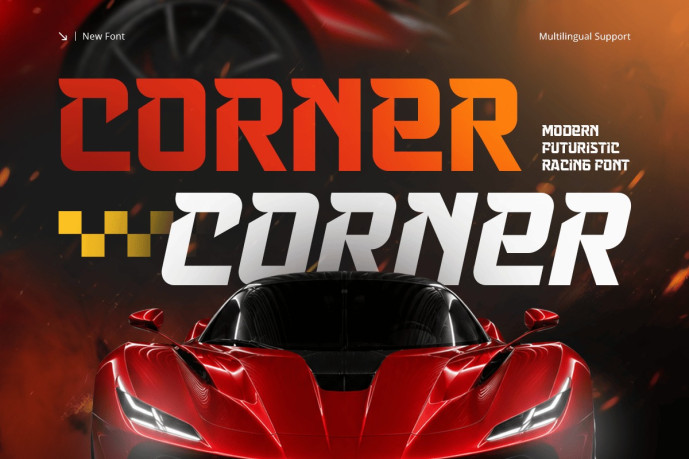
Corner – Modern Futuristic Racing Font
Corner – Modern Futuristic Racing Font is a futuristic racing font designed for motorsport branding, automotive graphics, gaming visuals, esports identities, and high-performance logo design. Inspired by advanced racing technology, aerodynamic engineering, and modern speed culture, Corner delivers bold typography that communicates precision, motion, and competitive energy.
Featuring sharp geometric letterforms, futuristic styling, and dynamic racing-inspired details, Corner creates a powerful visual identity for brands that thrive on innovation and performance. Its clean yet aggressive design is optimized for logos, display headlines, promotional campaigns, and digital branding, ensuring maximum impact across every creative application.
Whether you’re designing a motorsport logo, building an automotive brand, creating esports graphics, or producing technology-driven marketing materials, Corner provides the speed-focused typography needed to elevate your visual identity.
Corner Font Features
Character Set: Uppercase, lowercase, numbers, symbols, and punctuation
Modern futuristic letterforms optimized for racing logos and performance branding
Available with regular and italic version
OpenType features ready to enhance your design needs